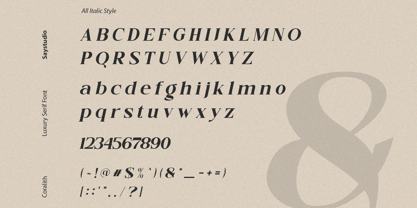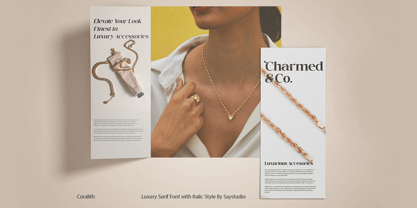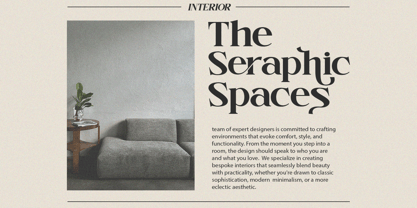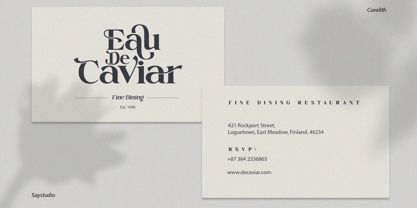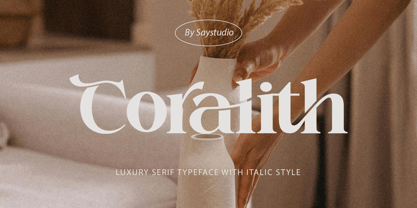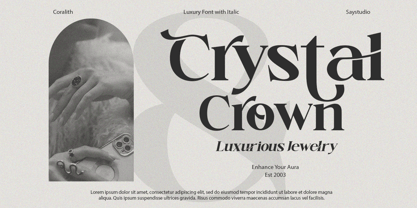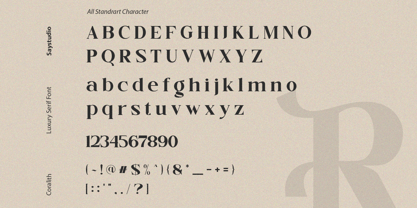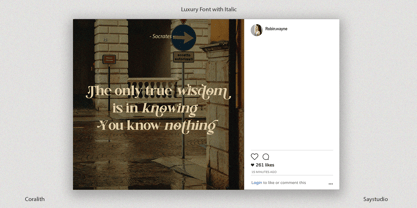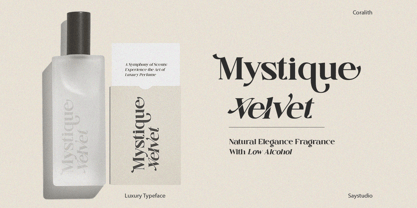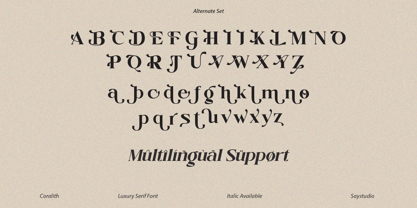
Coralith
The Coralith Font Family was designed by Ghina Luthfiarieska and published by Font Liner. Coralith contains 2 styles and family package options. More about this family
Coralith is a Luxury Serif Typeface . This typeface has been made carefully to make sure its premium quality and luxury feel. The ligatures makes this typeface unique and stands out rather than the regular serif font. Very suitable for logo, headline, tittle, and the other various formal forms such as invitations, labels, logos, magazines, books, greeting / wedding cards, packaging, fashion, make up, stationery, novels, labels or any type of advertising purpose.